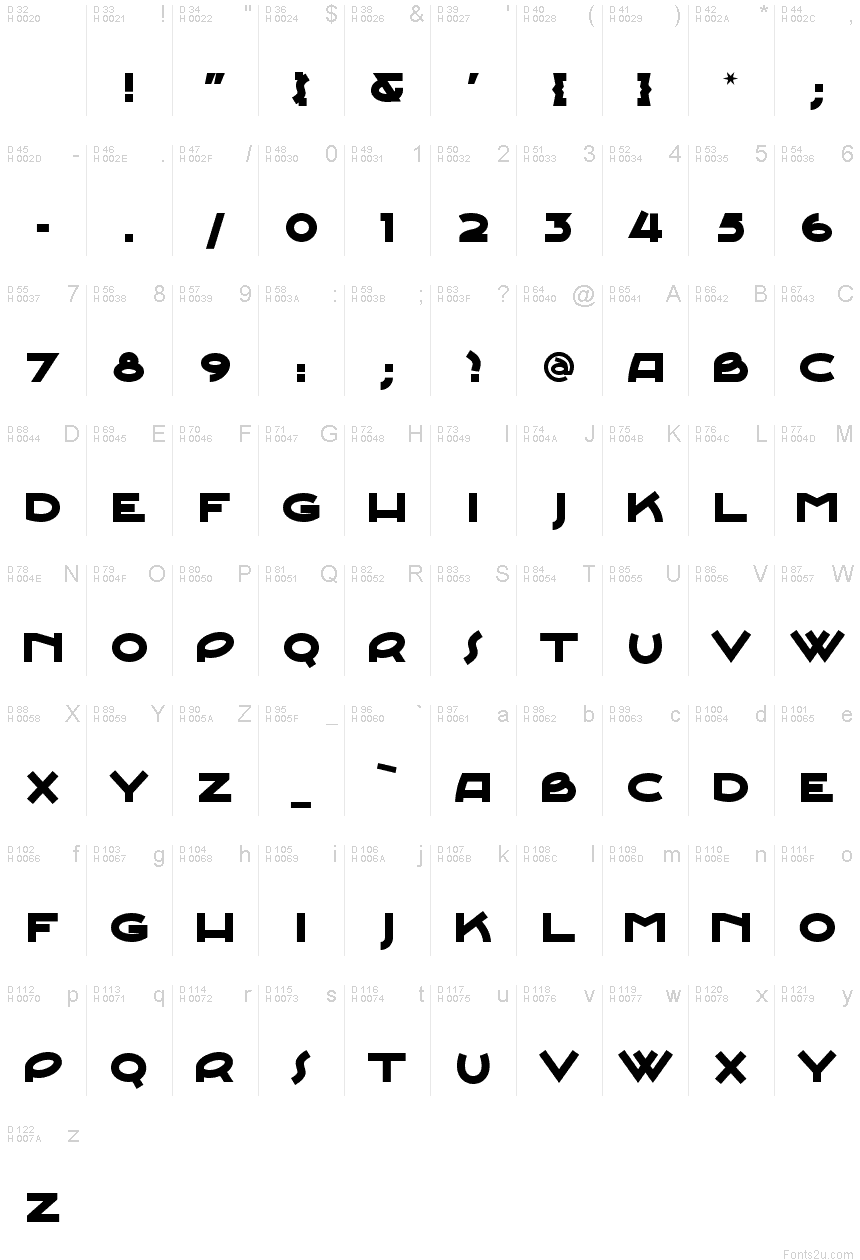
Junebug Stomp NF ExtraBold font by Nick Curtis is a free modern display typeface that hits like a bass drop. Its ultra-thick strokes, tight spacing, and mix of hard right angles with rounded curves give every word a punchy, club-poster energy. The letters feel almost sculpted-chunky, confident shapes that read fast and stay loud, even from a distance.
Using Junebug Stomp NF ExtraBold, your headlines snap on music flyers, festival branding, fashion campaigns, bold logos, packaging, and social promos. This free font thrives at large sizes where its blocky rhythm and futuristic curves can really breathe. Pair it with a clean, light-weight geometric sans for body copy to keep the focus on those big, stomping titles.